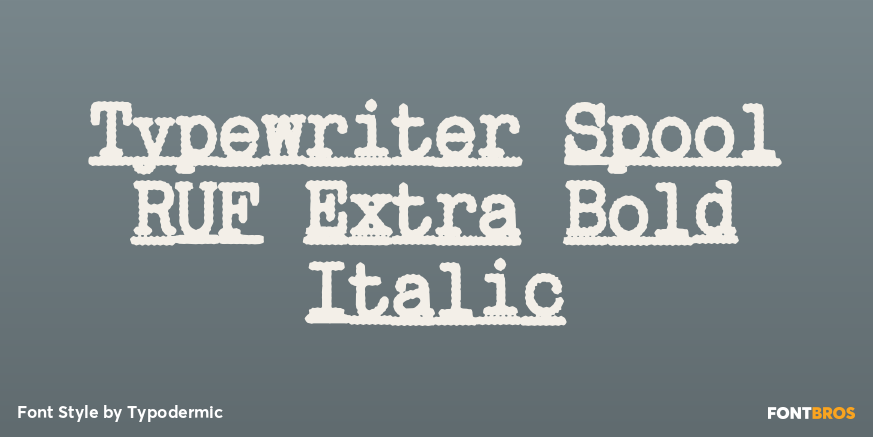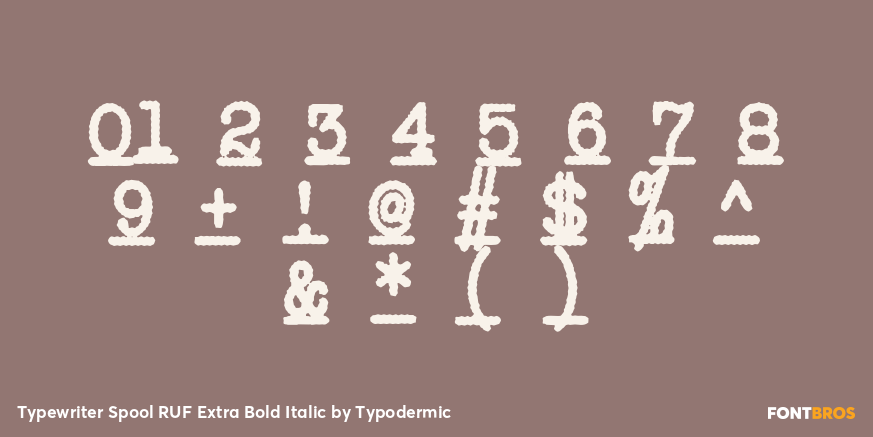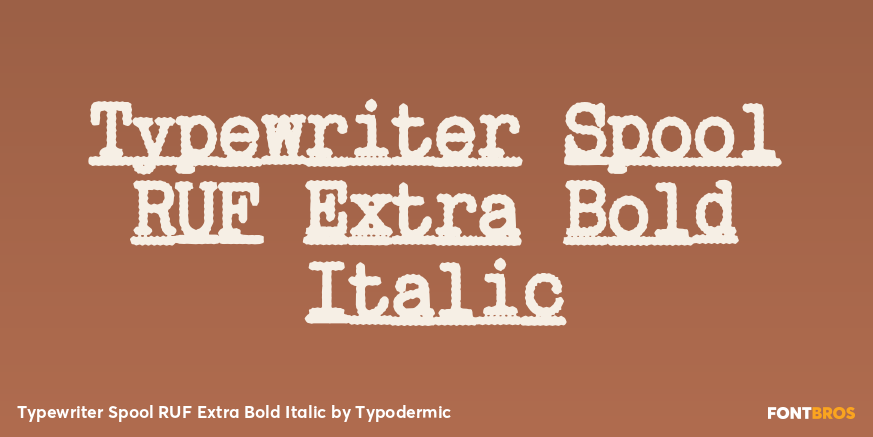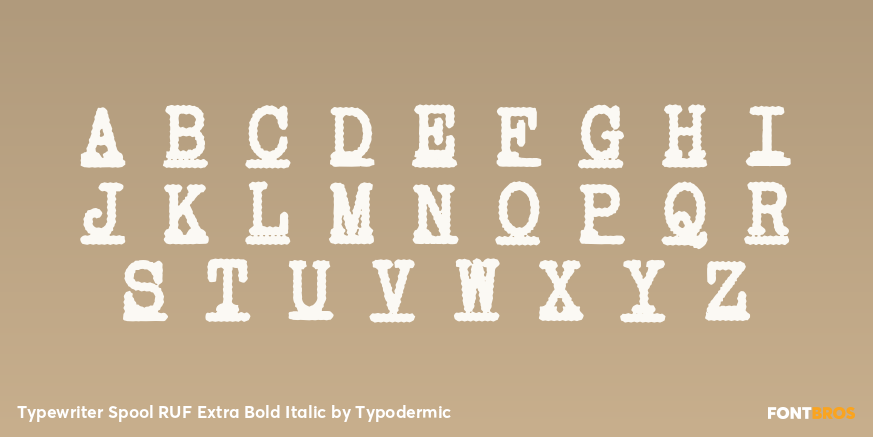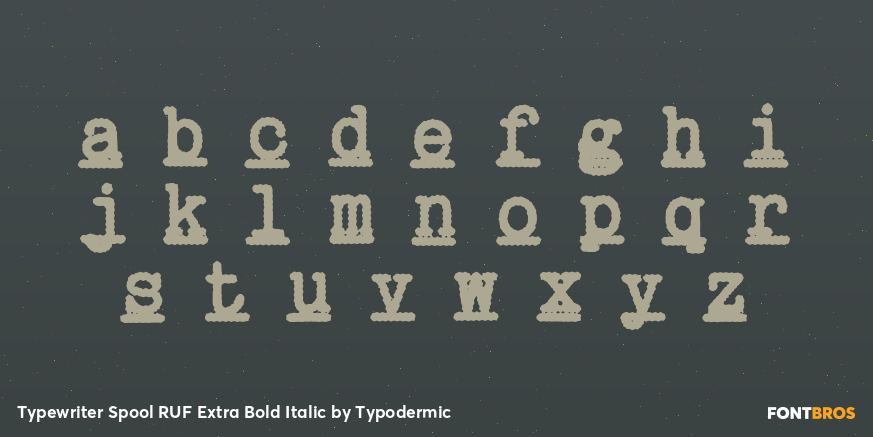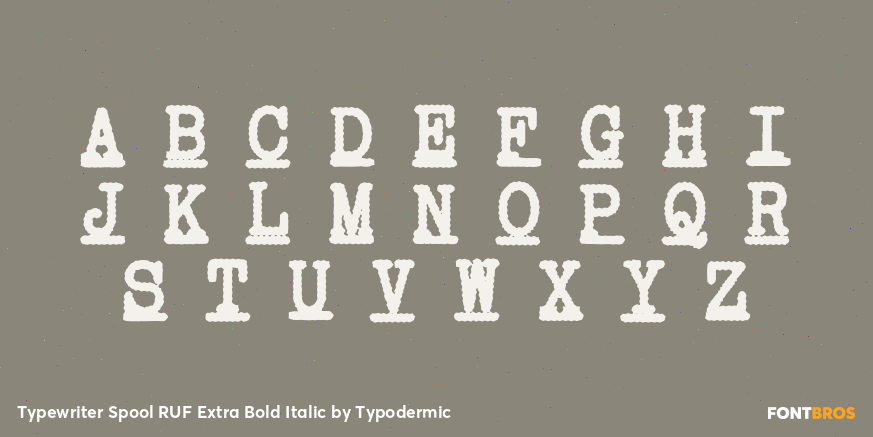
Typewriter Spool RUF Extra Bold Italic
Typewriter Spool RUF emphasizes worn ribbon, rough impressions, misalignment, and physical degradation. The damage belongs to the act of typing rather than a later photocopy stage, giving the letters the uneven pressure and depleted ink of a machine that has seen prolonged service. The concept remains consistent across RUF’s ordinary weight and italic variants.
Use RUF for field reports, battered correspondence, witness statements, workshop records, old equipment labels, evidence documents, and historical-production props that need a visibly hard-used original. Its irregular surface is clearest at generous sizes; CLN or SFT can carry cleaner companion material within the same documentary system.